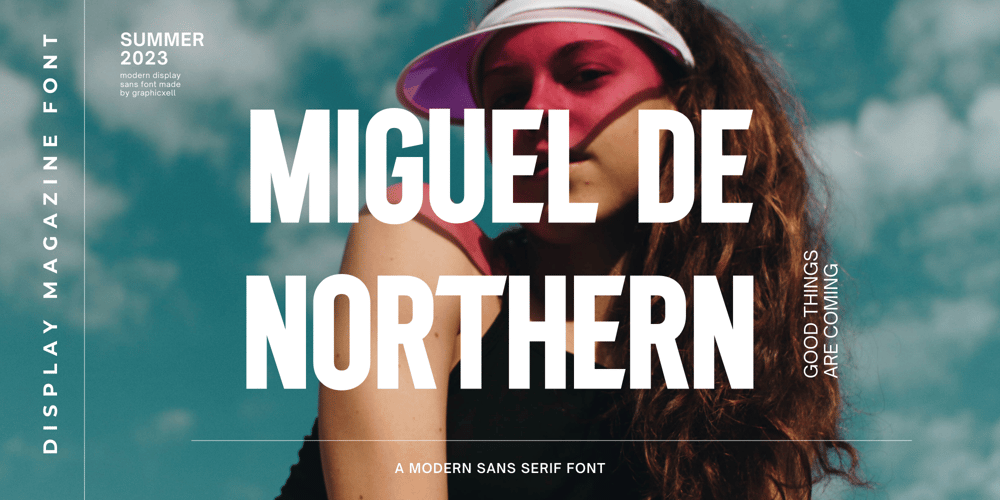
Miguel De Northern
Miguel De Northern font
Miguel De Northern Font Family was designed by Graphicxell and published by Graphicxell. Miguel De Northern contains 1 styles and family package options. Miguel De Northern Sans Serif Font inspired by the famous minimalist logo perfect for the purposes of designing templates, brochures, videos, advertising branding, logos, invitation, layout design, elegant crafting, beauty design and more.